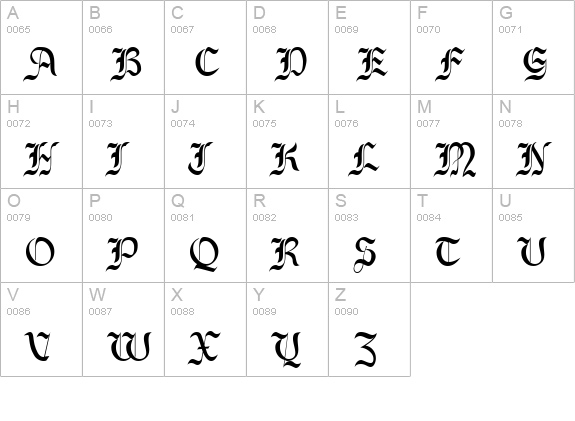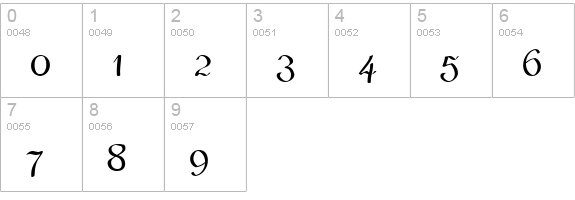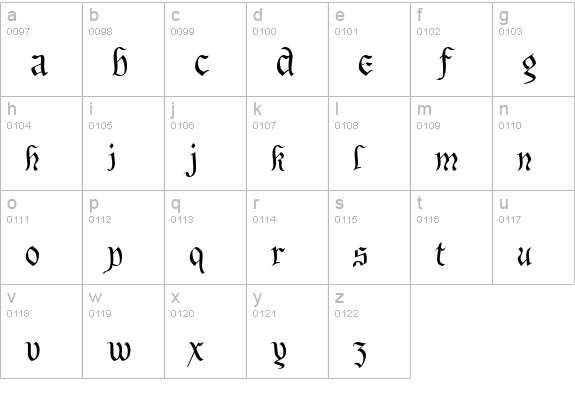
BeneCryptine Font Details
BeneCryptine font is a stylish and modern typeface that exudes a sense of mystery and sophistication. Its intricate design features elegant curves and sharp edges, creating a unique and eye-catching look. The characters are beautifully crafted with a blend of classic and contemporary elements, making BeneCryptine perfect for a wide range of design projects. What sets BeneCryptine font apart is that it is not only visually striking, but also versatile and easy to read. Whether used for headlines, body text, or branding, this font will surely make a statement and leave a lasting impression. The best part? BeneCryptine font is completely free to download at FontsMarket.com. So go ahead and enhance your designs with this exceptional typeface today!